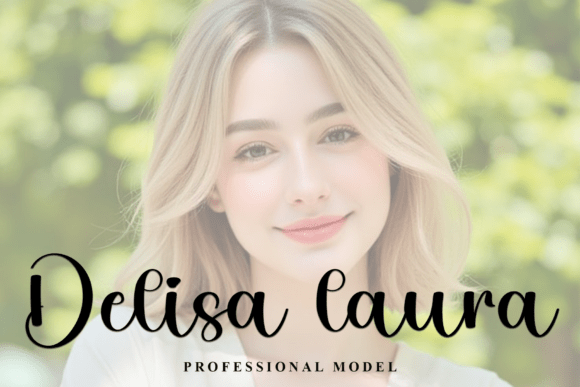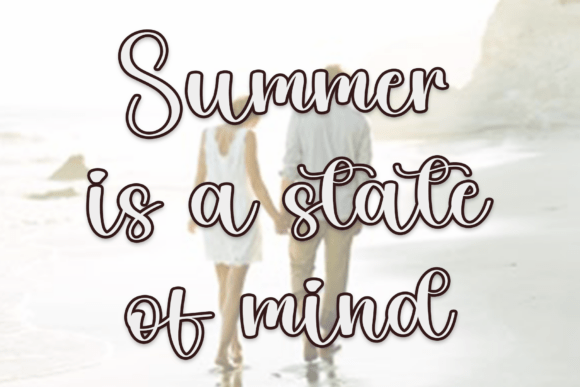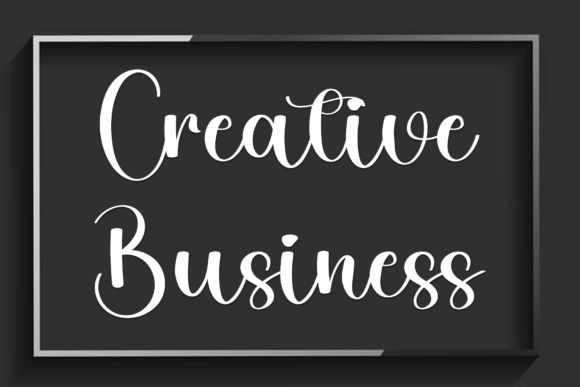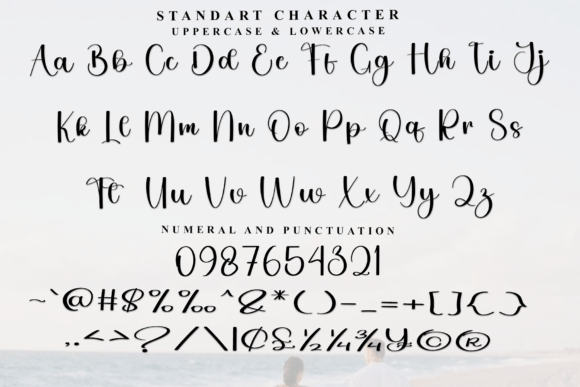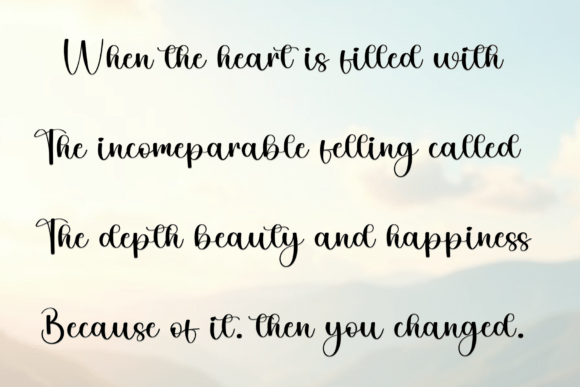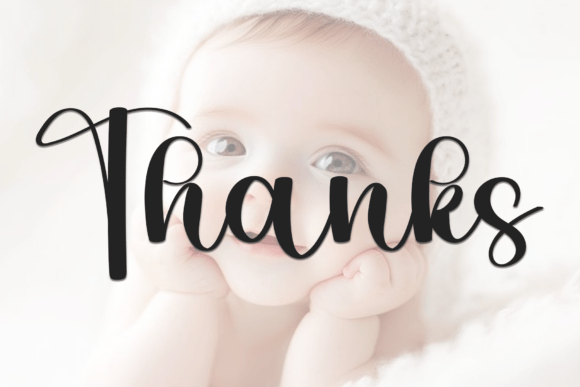
Babylove Font: Elevate Your Designs with Elegance and Flair
Babylove is a delicate, elegant, and flowing handwritten font that has captured the hearts of designers and crafters alike. Its beautiful and well-balanced characters make it an ideal match for a wide pool of designs, allowing you to add a touch of sophistication and whimsy to your most creative ideas. In this article, we’ll dive into the world of Babylove Font, exploring its features, uses, and benefits, as well as provide tips on how to make the most of this stunning font.
The Characteristics of Babylove Font
Babylove Font is a handwritten font that exudes elegance and refinement. Its delicate strokes and flowing lines create a sense of movement and fluidity, making it perfect for designs that require a touch of whimsy and personality. The font’s well-balanced characters ensure that it remains clear and legible, even at smaller sizes, making it suitable for a wide range of applications, from digital designs to print materials.
What Makes Babylove Font So Versatile?
One of the key reasons Babylove Font stands out is its incredible versatility. Its elegant and flowing design makes it an excellent match for a wide range of designs, from:
- Branding and packaging designs
- Digital marketing materials and social media graphics
Whether you’re creating a romantic wedding invitation or a bold brand identity, Babylove Font is sure to add a touch of sophistication and style to your design.
Tips for Using Babylove Font
To make the most of Babylove Font, here are a few tips to keep in mind:
- Pair it with contrasting fonts: Combine Babylove Font with bold, geometric fonts to create a striking contrast and add visual interest to your design.
- Experiment with colors: Babylove Font looks stunning in a range of colors, from soft pastels to rich jewel tones. Experiment with different hues to find the perfect match for your design.
- Play with textures and patterns: Add depth and interest to your design by combining Babylove Font with textures and patterns, such as watercolor backgrounds or floral motifs.
The Benefits of Using Babylove Font
So why choose Babylove Font for your next design project? Here are just a few benefits of using this stunning font:
- Elegance and sophistication: Babylove Font adds a touch of refinement and elegance to any design, making it perfect for high-end brands and special occasions.
- Versatility: With its well-balanced characters and flowing design, Babylove Font is suitable for a wide range of applications and design styles.
- Easy to read: Despite its delicate design, Babylove Font remains clear and legible, even at smaller sizes.
Babylove Font is a beautiful, elegant, and versatile handwritten font that is sure to elevate your designs to new heights. With its delicate strokes, flowing lines, and well-balanced characters, it’s the perfect choice for designers and crafters looking to add a touch of sophistication and whimsy to their work. Whether you’re creating wedding invitations, branding materials, or digital graphics, Babylove Font is sure to make your designs come alive!